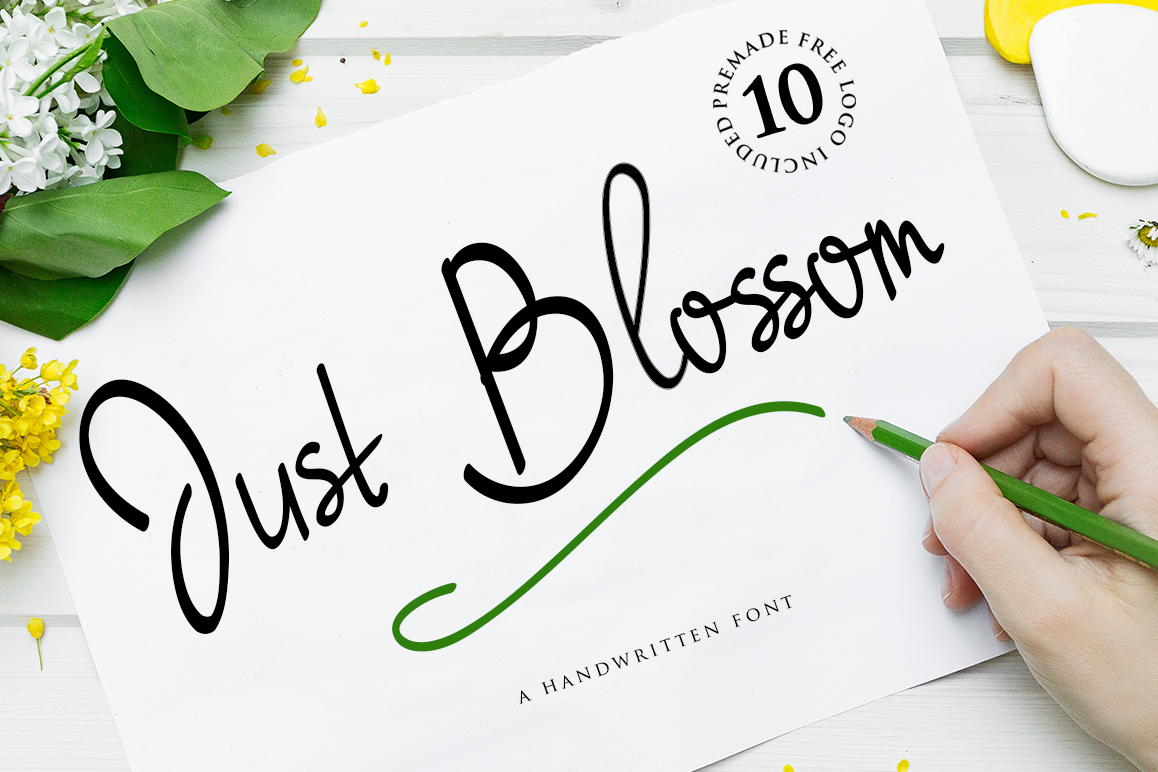
Just Blossom
Just Blossom Font is a unique, cool and modern handwritten font. It’s hand look style makes it perfect for use in all your design projects be it logos, signatures, labels, packaging design, blog headlines.
Using Just Blossom will definitely make your text stand out. Just blossom comes with upper and lowercase Basic Characters, Numbers, Symbols and Punctuation. As a feature you have also the standard Double Letters Ligature, Special Ligatures, Swashes and Illustrations.
• Basic Latin A-Z and a-z
• Numberial and Functional
• Swashes